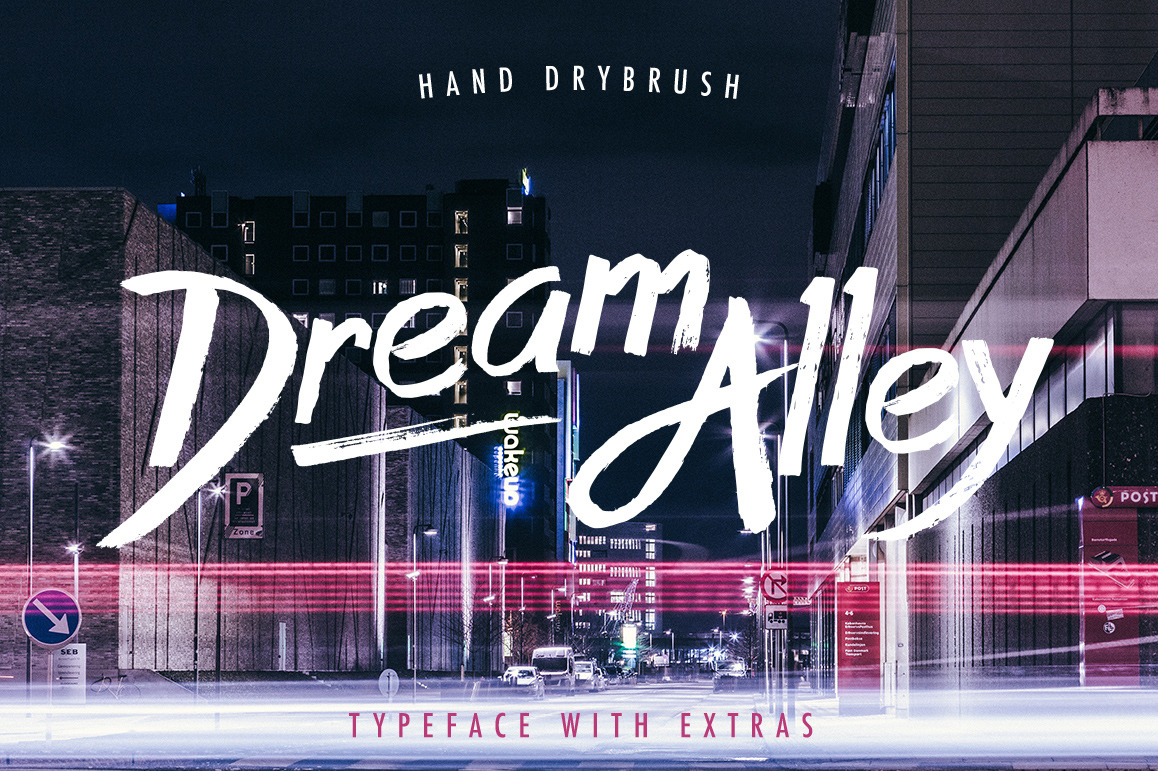
Dream Alley Font
Dream Alley is a handwritten dry brush script, I's little imperfections make it perfect for any design that needs a bit of human touch in typography.
All capital letters have stylistic alternates. You don't like particular letter in your design or want to make your designs "less digital" with unique letters? No problem - you can always switch to alternate letter that looks a little different but yet match the overall style.